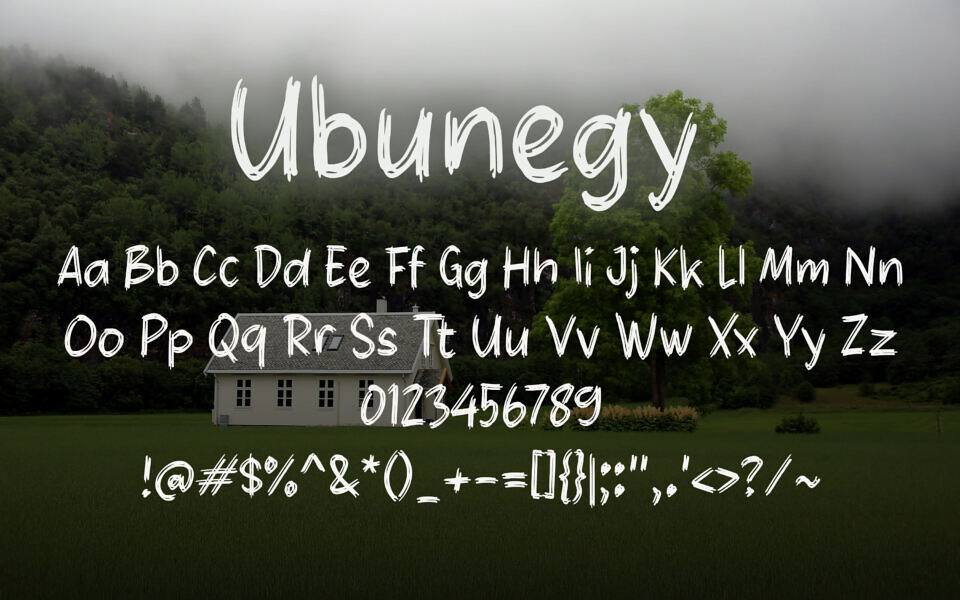
Ubunegy Font
Ubunegy is a handcrafted display font designed by Wahyu Eka Prasetya. Featuring 95 glyphs, it offers a casual, brush-style aesthetic that evokes a natural and organic feel. Ideal for posters, branding, and creative projects!